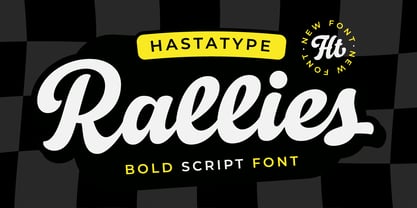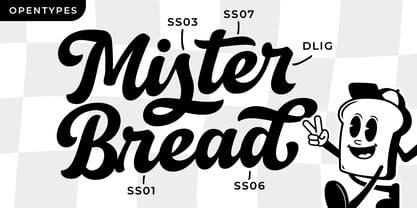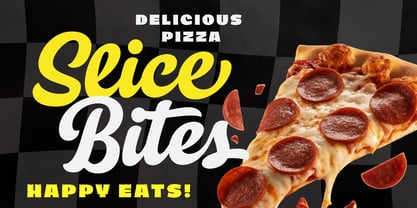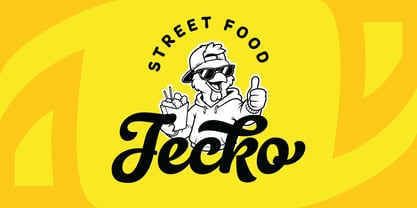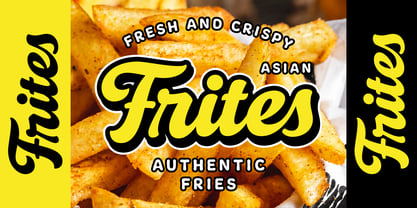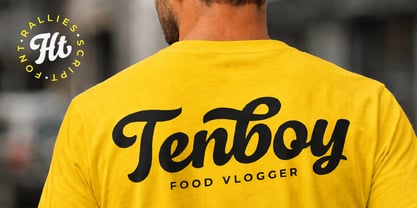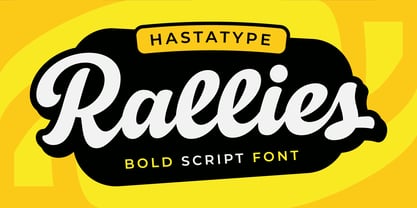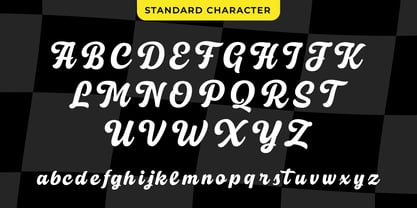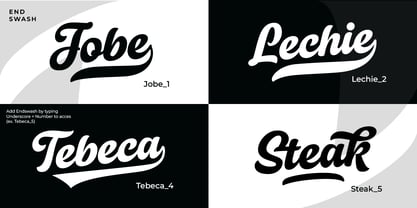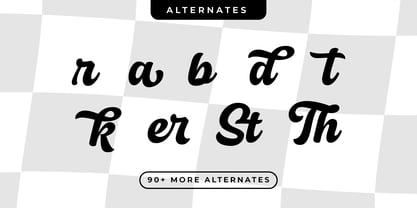
Rallies
von Hasta Type
Die Schriftfamilie Rallies wurde von Salman Mashudi entworfen und von Hasta Type veröffentlicht. Rallies enthält 1 Stile. Mehr über diese Familie
Rallies – Bold Script Font Great food deserves exceptional typography, and that's the inspiration behind Rallies. Drawing from vintage American diners, classic burger joints, and the art of handcrafted sign painting, Rallies is a bold script font that infuses warmth, personality, and a nostalgic flair into your designs. Its smooth curves, thick strokes, and confident letterforms ensure that every word feels handcrafted and rich in character. Designed with branding in mind, Rallies is ideal for crafting standout logos, eye-catching packaging, restaurant menus, apparel graphics, and engaging social media content. It shines in settings such as cafés, food trucks, pizza shops, street food brands, and any project that seeks a friendly retro vibe. To enhance your creative possibilities, Rallies features over 90 alternate characters, along with Stylistic Sets, Discretionary Ligatures, and Ending Swashes. These OpenType features allow for effortless customization of words, resulting in natural-looking typography that elevates your design projects.
Designer: Salman Mashudi
Foundry: Hasta Type